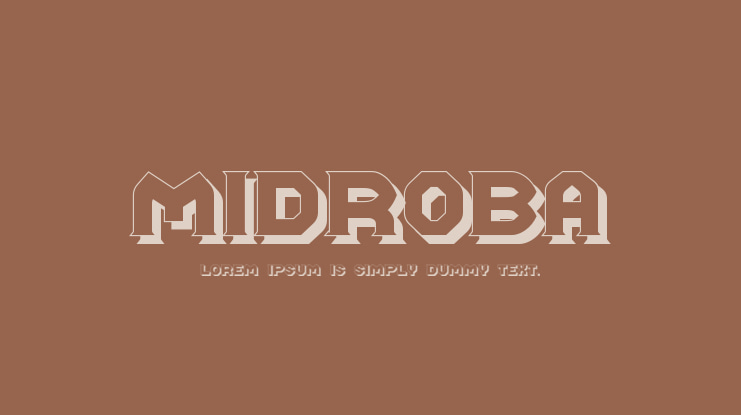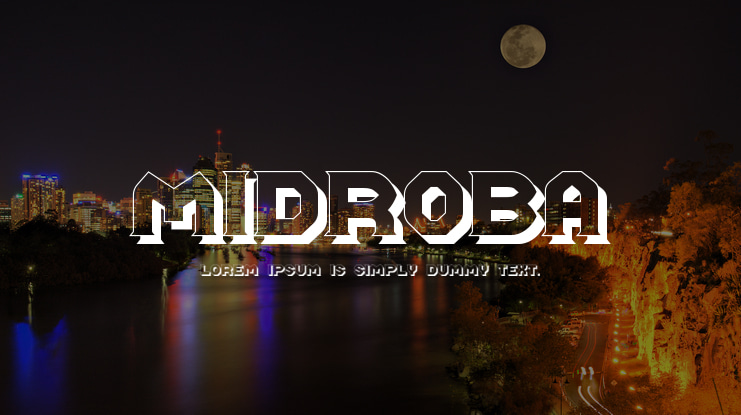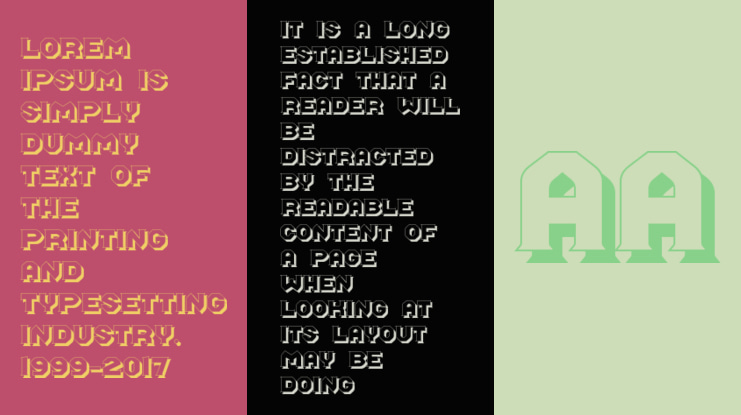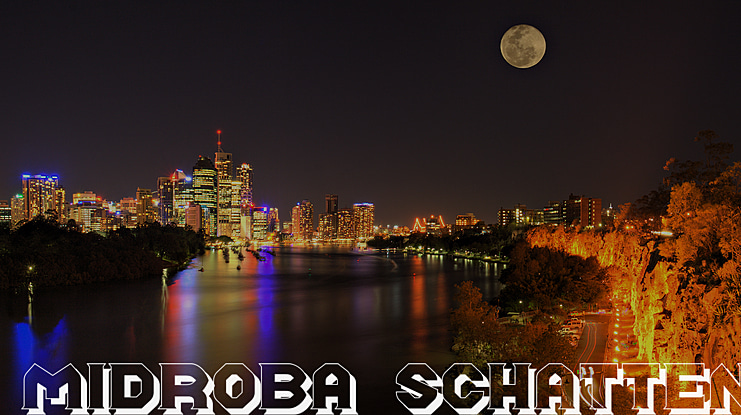
Midroba Font Family
Peter Wiegel
1916, the Central European sleeping and dining company, founded shortly Mitropa. The Berlin graphic Schuöpig Charles, who had also designed the logo of pelican, has designed a logo for it and the 7 letters of the company. Meanwhile, the historical name for sleeping and dining cars have disappeared from the tracks. So I added the rest of the 7 letters of the alphabet and not to get into trademark trouble, the company halt Saxon expressed written MIDROBA :-)